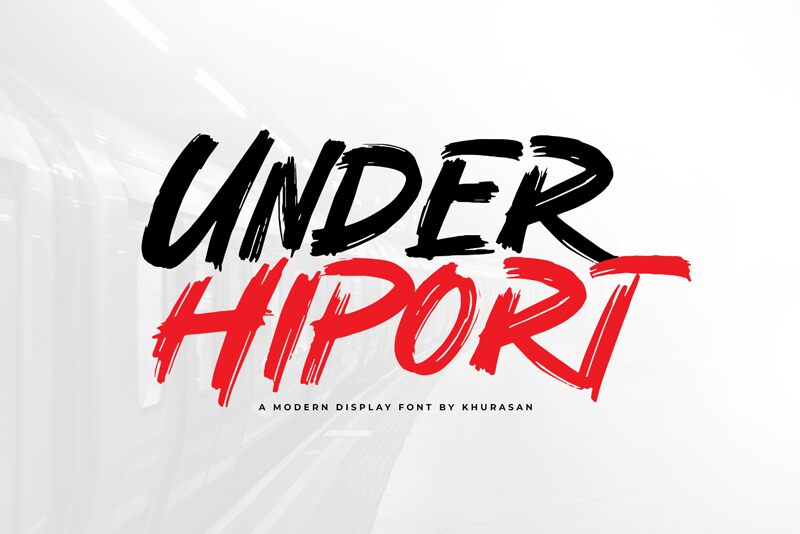
Under Hiport
Under Hiport, designed by Khurasan, is a modern semi-bold brush font that adds a touch of quirkiness to any design.
With its bold strokes and handwritten feel, this font is perfect for creating eye-catching posters, captivating logos, stylish magazine layouts, captivating book covers, and attention-grabbing banners. Its versatility makes it suitable for a wide range of projects across various industries. Add the charm of Under Hiport to your creative ideas and watch them come to life with its unique appeal.
Stand out from the crowd and make a lasting impression with this playful yet professional font choice.